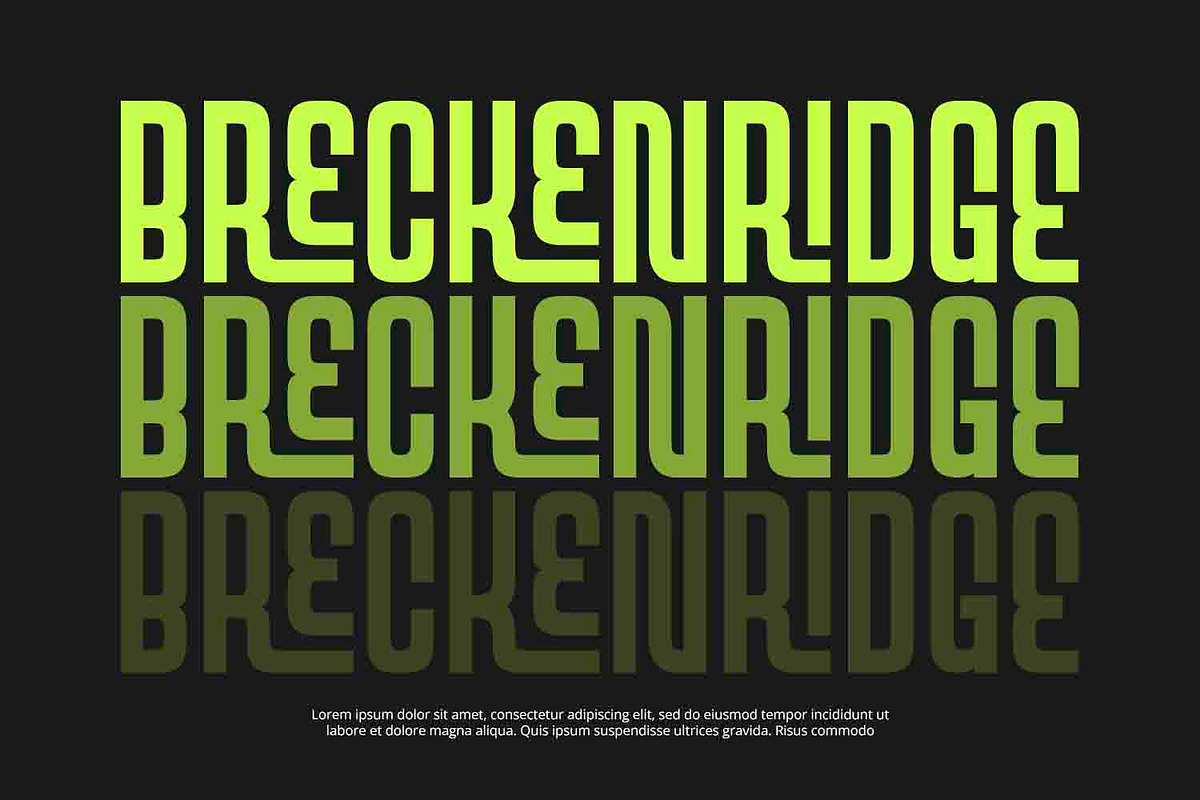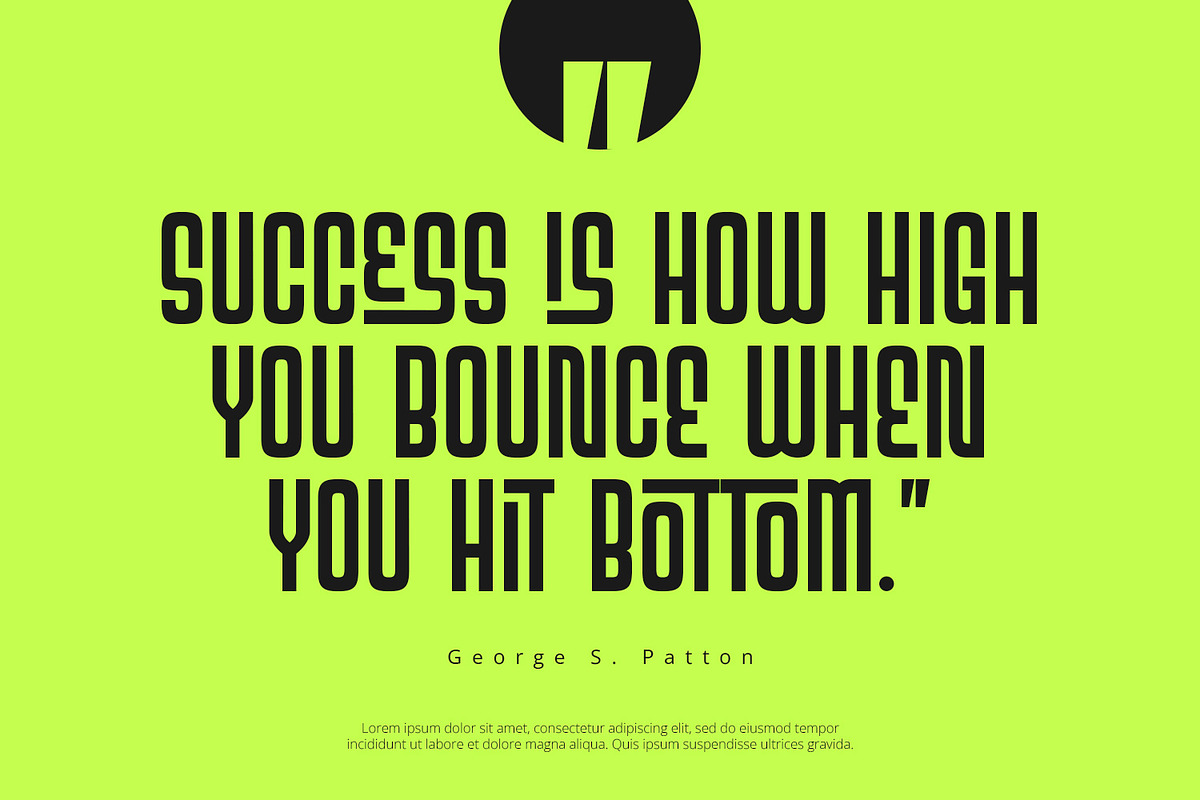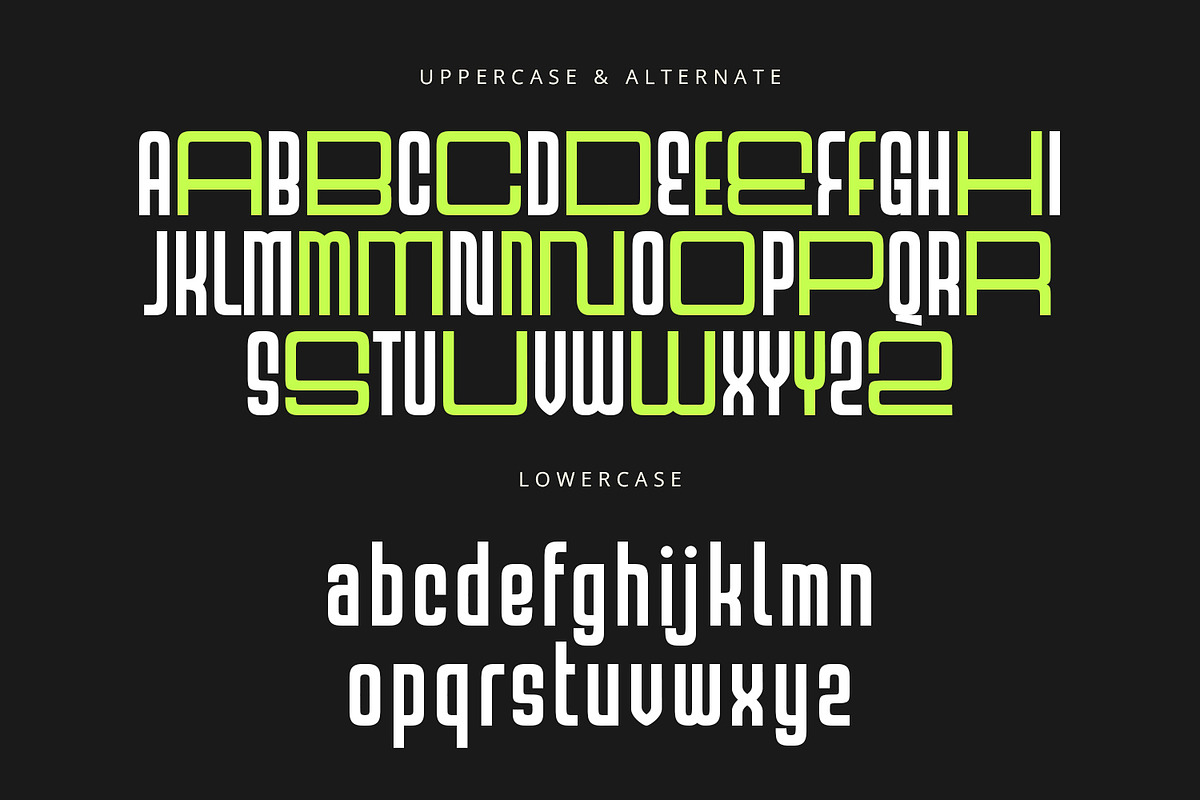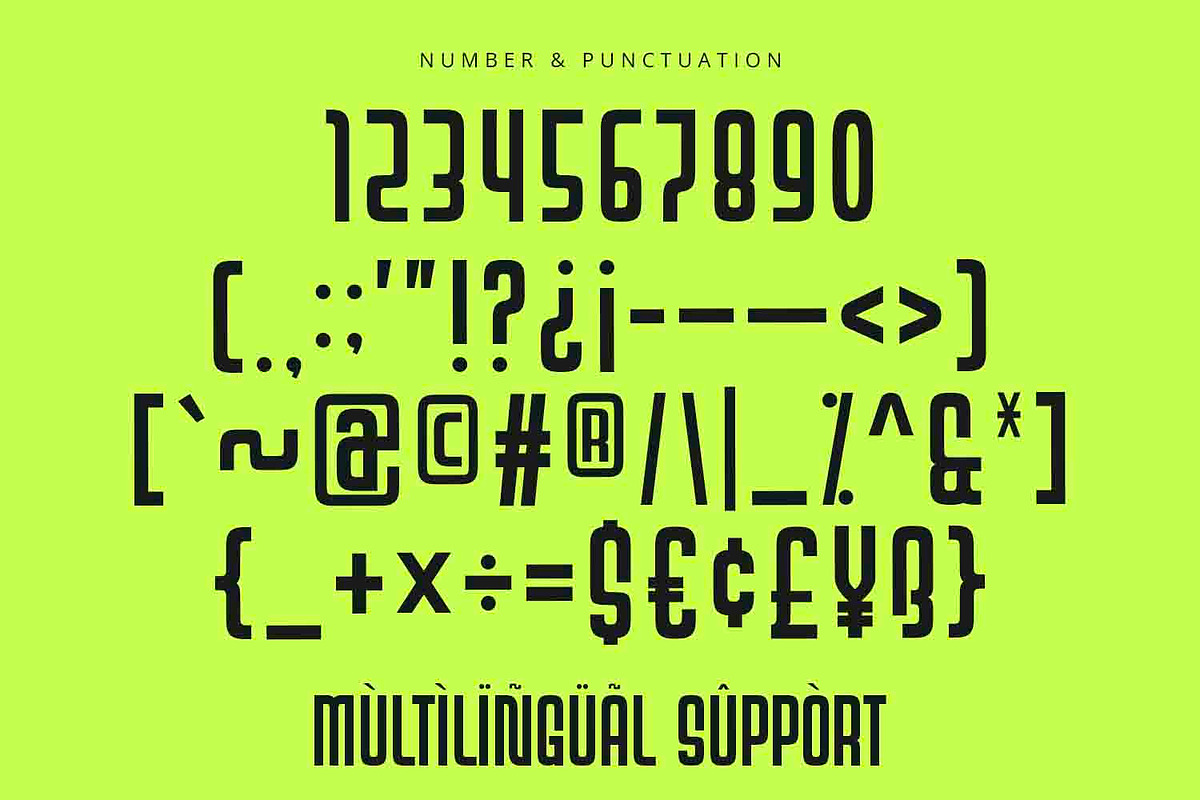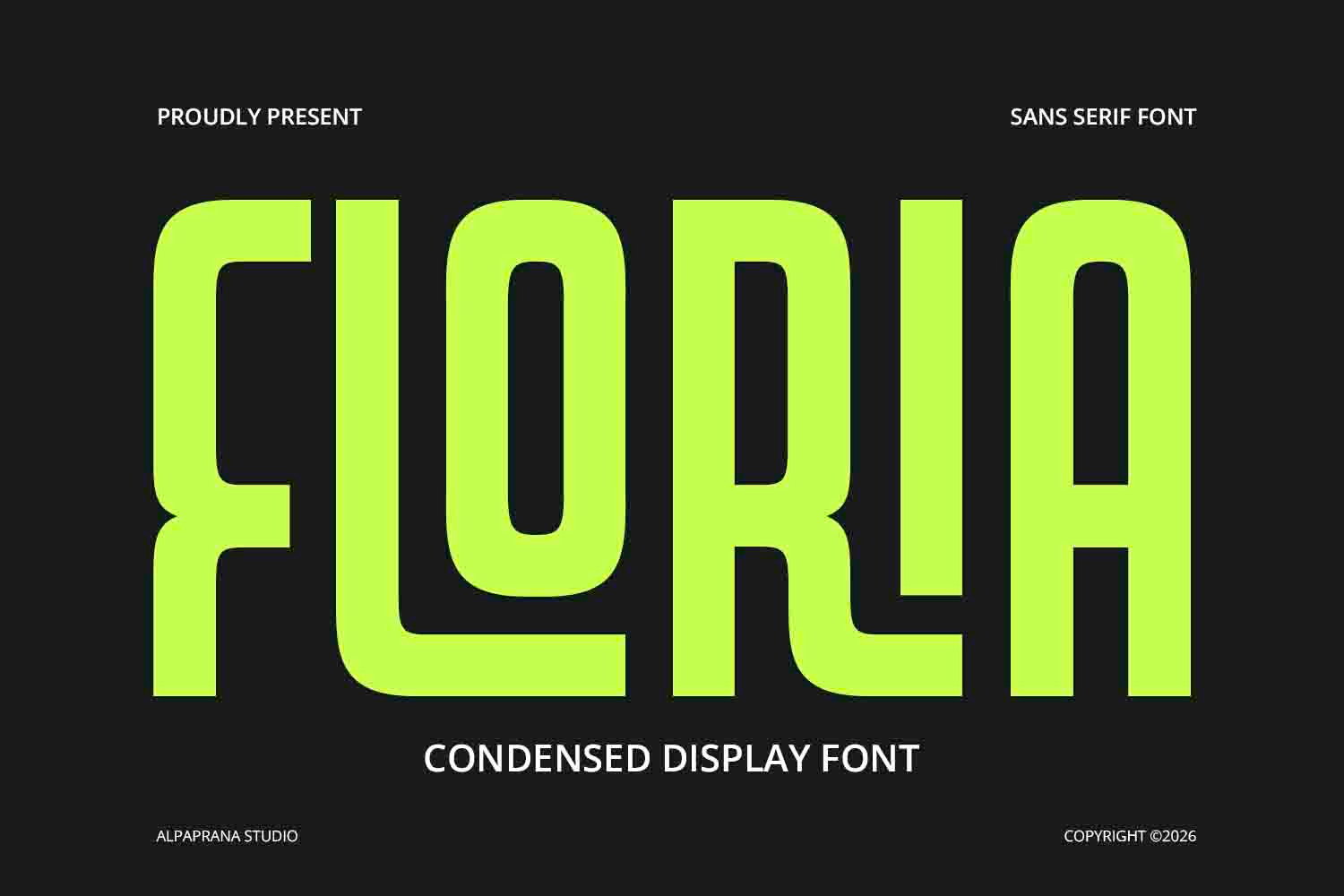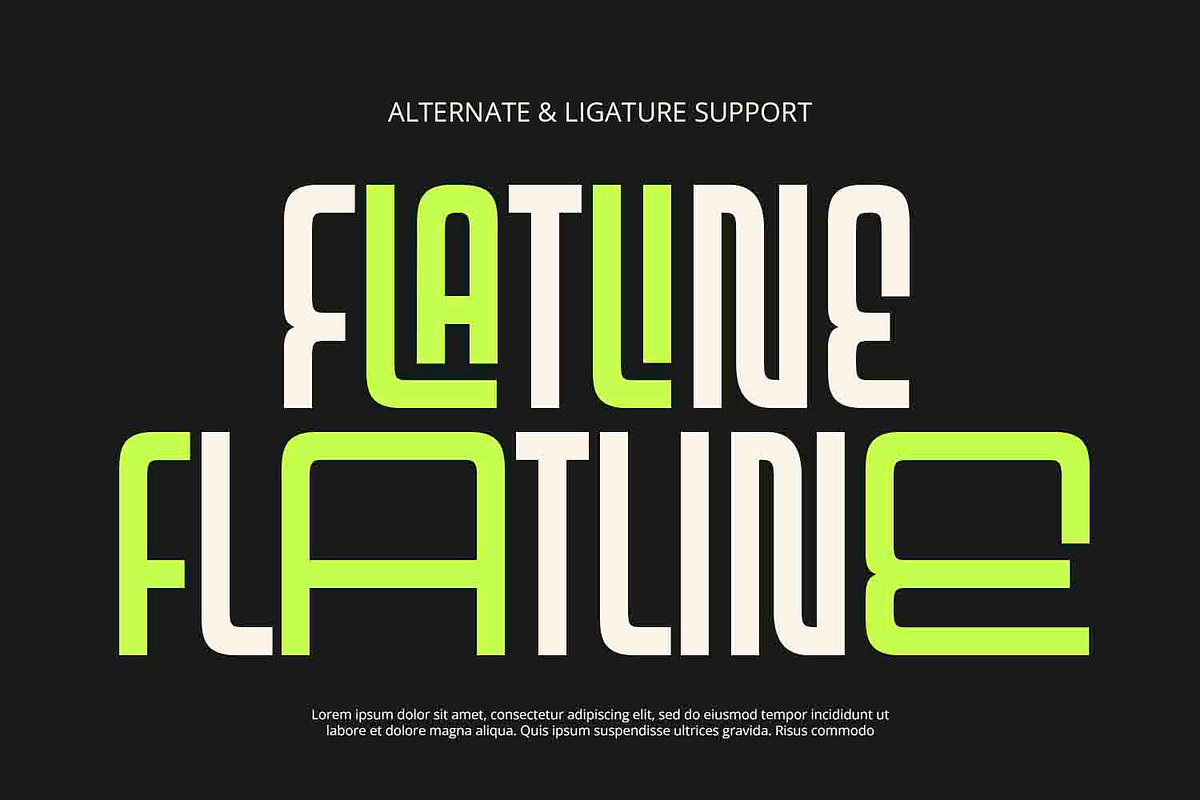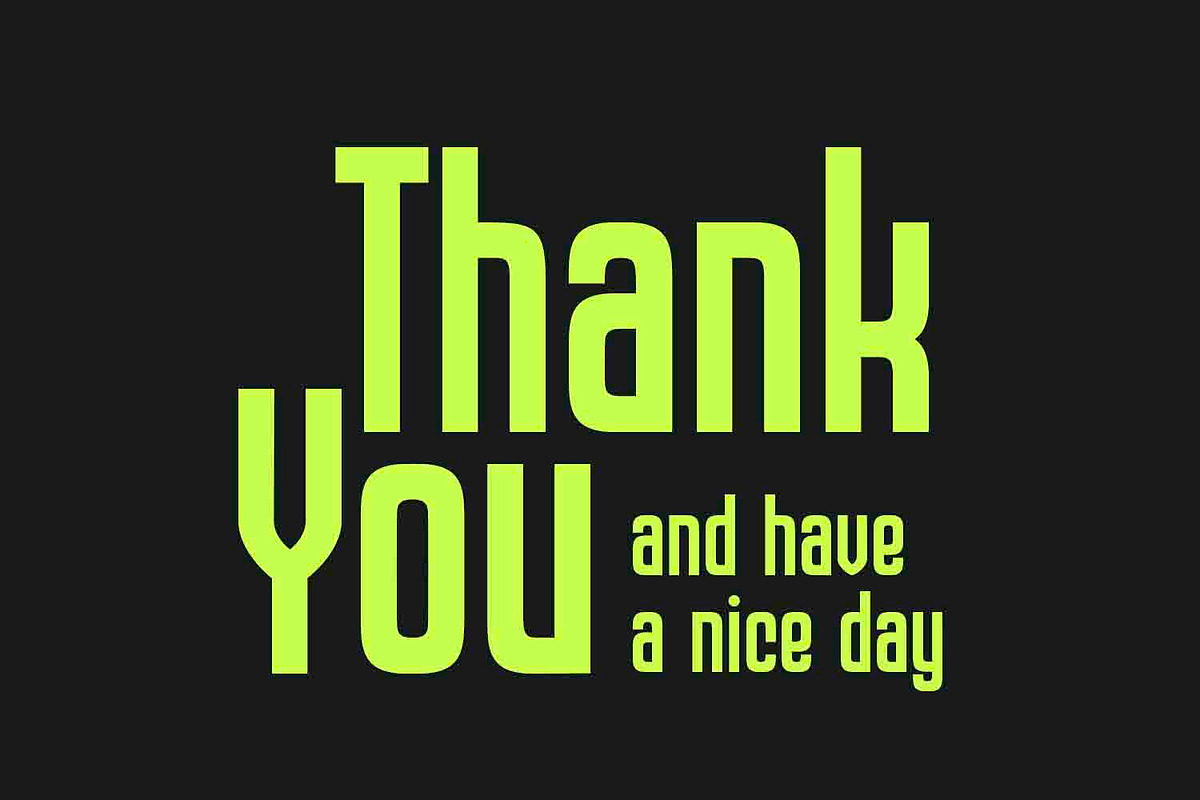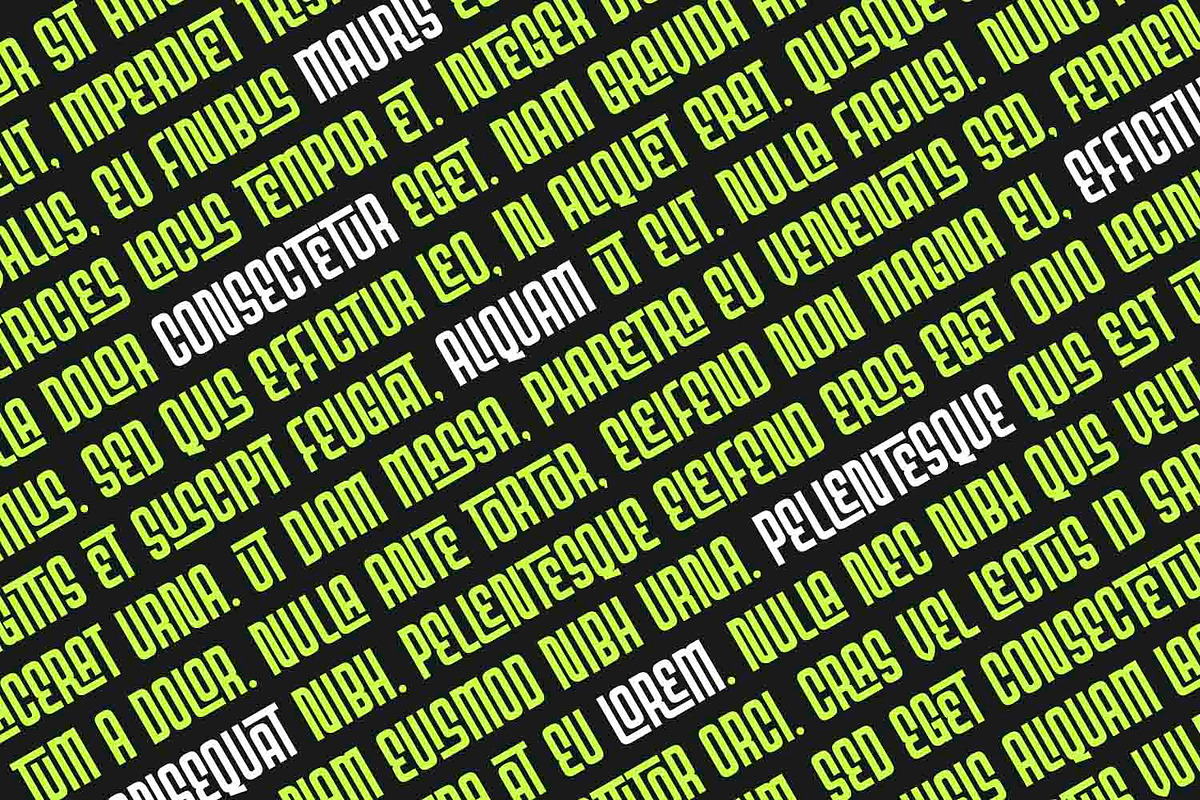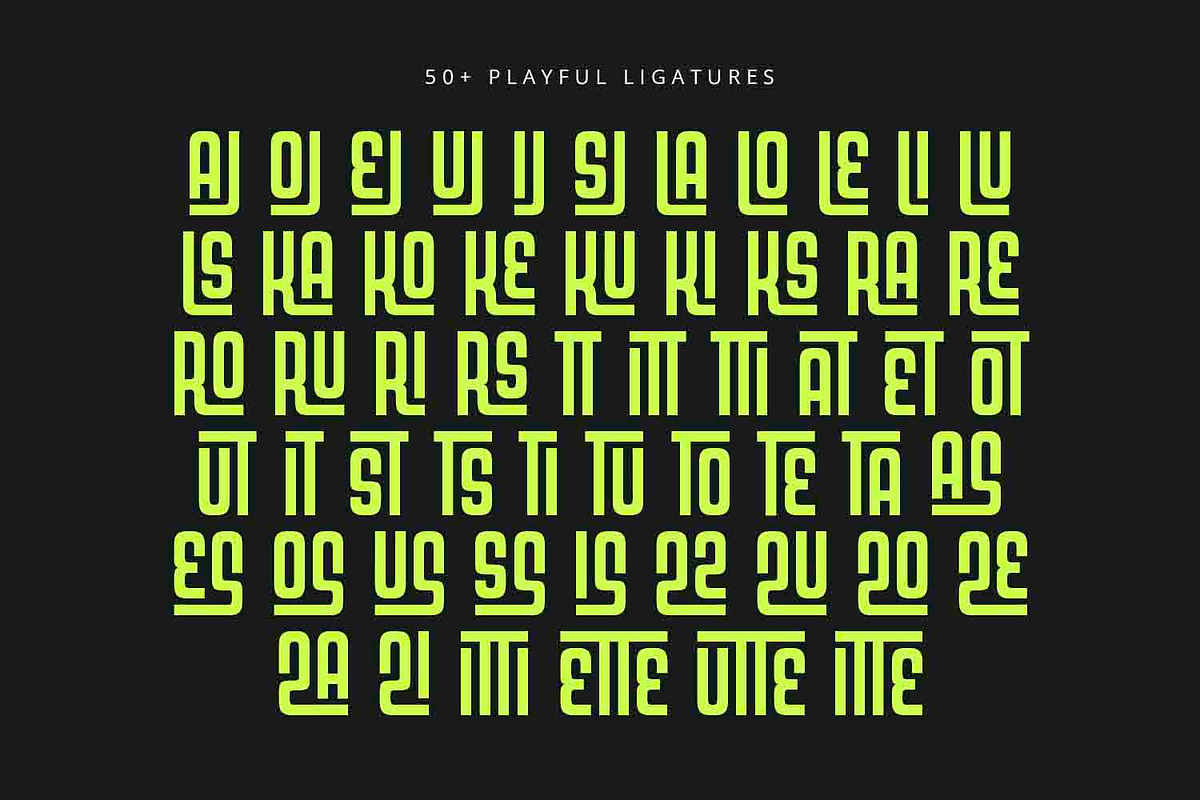
Floria - Display Font
Floria is display font with modern feels. It will be perfectly used for Branding, Logo Design, Lettering, Logotype, Clothing, Poster, magazine, packaging, posters, shopping bags, t-shirts, book covers, photography, special events and other design project.